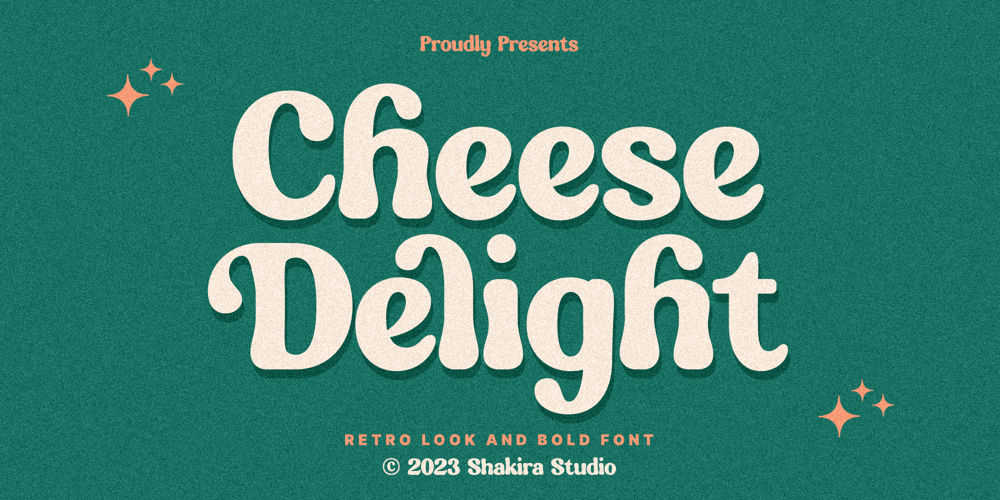
Cheese Delight Font Family was designed by Idhham Cholid Rikzano Yahya and published by Shakira Studio. Cheese Delight contains 1 styles and family package options. Introducing Cheese Delight – A Retro Serif Font with Unparalleled Elegance! 🧀✨What sets Cheese Delight apart are its uniquely crafted special characters, each a work of art that adds an extra layer of beauty and distinction to your designs. 🎨✨Whether you’re working on a vintage-inspired logo, elegant invitations, or captivating posters, Cheese Delight infuses your projects with a touch of sophistication that’s currently dominating . 🔥🌟Don’t miss the chance to make your designs stand out! Elevate your creative endeavors with Cheese Delight, where every character tells a story of its own. 🧀🌈Here’s what you get: All Multilingual symbol Opentype features ( ligature, alternate ) Accessible in the Adobe Illustrator, Adobe Photoshop, Adobe InDesign, even work on Microsoft Word. PUA Encoded Characters – Fully accessible without additional design software. Multilingual character supports : (Afrikaans, Albanian, Catalan, Croatian, Czech, Danish, Dutch, English, Estonian, Finnish, French, German, Hungarian, Icelandic, Italian, Lithuanian, Maltese, Norwegian, Polish, Portuguese, Slovenian, Spanish, Swedish, Turkish, Zulu)Follow my shop for upcoming updates, and for more of my work,Thank you!